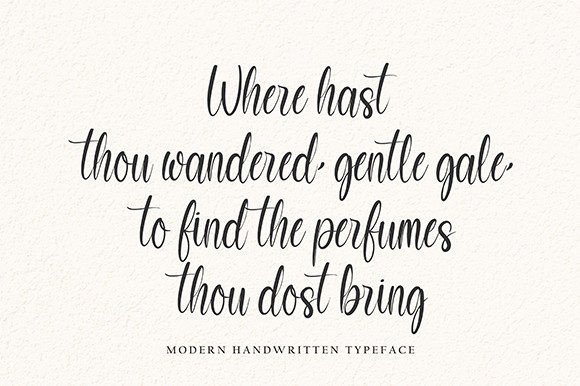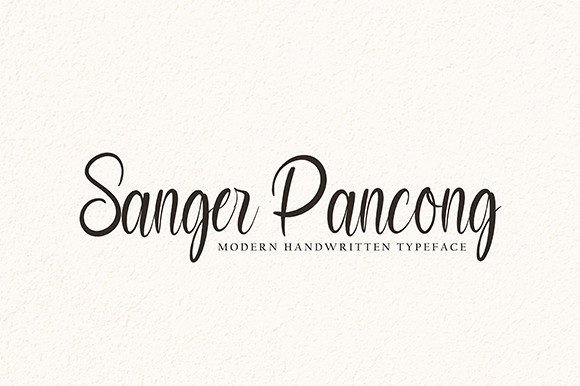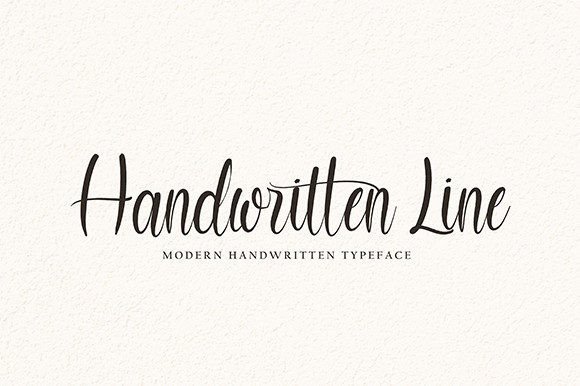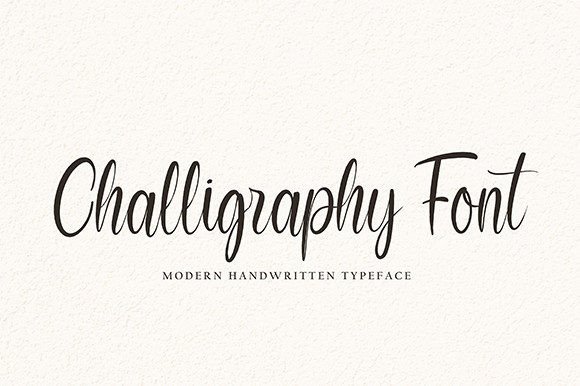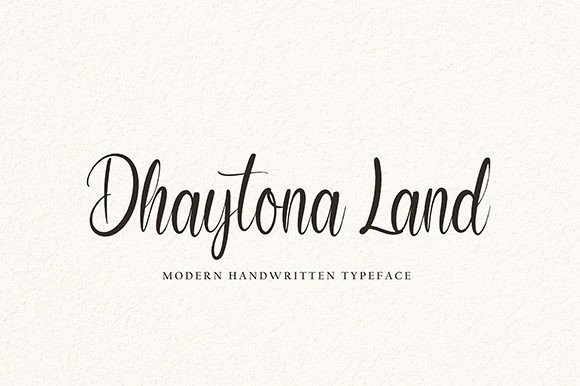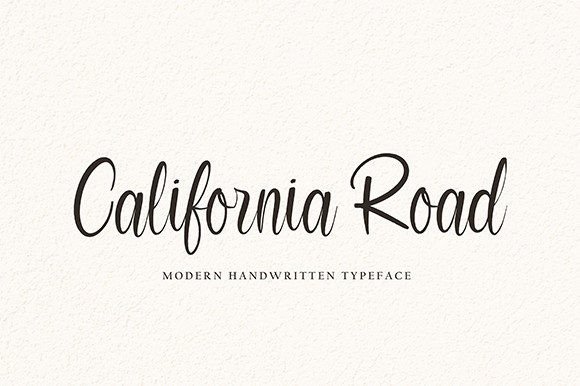
Introduction to Sakartty Font
Have you ever been working on a creative project, pouring your heart and soul into every detail, only to feel like something’s missing? The perfect font can make all the difference. That’s where Sakartty Font comes in – a beautiful, flowing handwritten font that adds an elegant touch to any design.
With its distinct and timeless style, Sakartty Font is a valuable resource for designers looking to create high-quality designs that stand out from the crowd. Whether you’re working on a logo, brochure, or social media graphic, this font is sure to impress. Plus, with a transparent background and free download option, it’s easy to incorporate into your next project.
Key Features of Sakartty Font
• High-quality design resource ideal for creative projects, offering a unique and modern aesthetic.
• Transparent background, allowing for seamless integration with various design elements and backgrounds.
• Designed to be highly legible, making it perfect for use in a wide range of creative projects, from logos to digital art.
• Available in a single weight, providing a clean and minimalist look that is easy to work with.
• Perfect for designers, artists, and anyone looking for a free, high-quality design resource to enhance their creative project.
Honest Review: Sakartty Font
I recently came across the Sakartty Font and was excited to give it a try in my creative project. As a designer, I’m always on the lookout for high-quality design resources to elevate my work. The Sakartty Font is a free download that promises a lot, so let’s dive in and see if it delivers.
• Unique and stylish design that adds a touch of elegance to any project ✨
• Transparent background option for easy integration with other design elements ✨
• High-quality typography that’s perfect for headings and titles ✨
• Only a limited number of font styles are available, which may not be ideal for projects requiring a wide range of typography options ⚠️
• The font may not be suitable for large body text, as it can appear somewhat dense ⚠️
Overall, I’m impressed with the Sakartty Font’s potential to elevate creative projects. While it has its limitations, the high-quality design and unique style make it a valuable addition to any designer’s toolkit. If you’re looking for a stylish and elegant font for your next project, the Sakartty Font is definitely worth checking out.
When using Sakartty Font, consider using it for creative projects that require a high-quality design resource. The font’s transparent background makes it ideal for designing on a transparent background. You can also use it for presentations, social media graphics, and other design projects where a unique and creative font is needed.